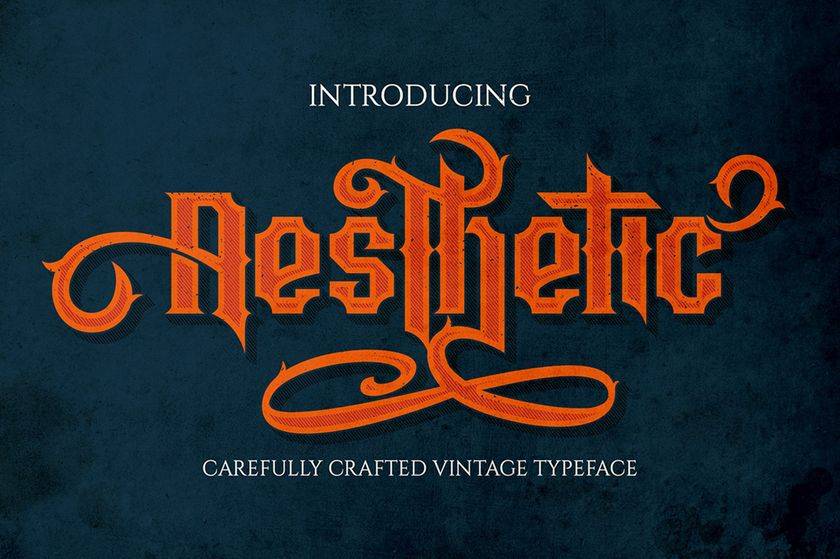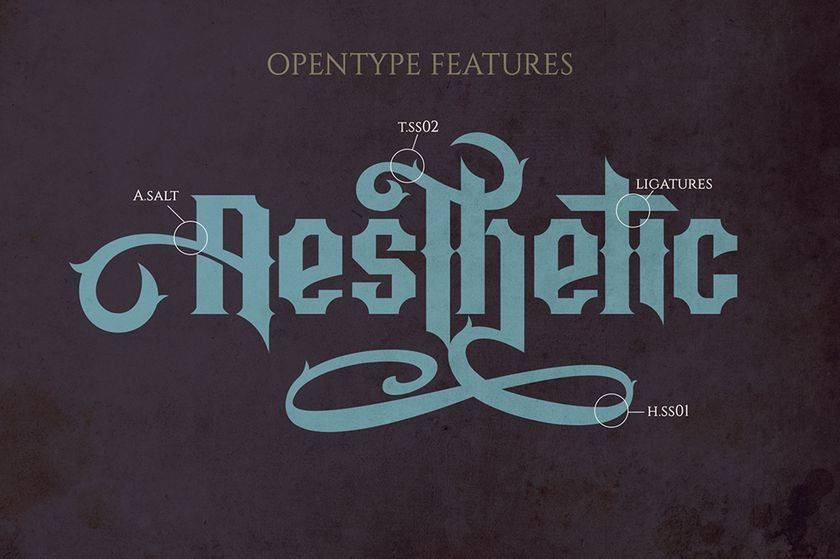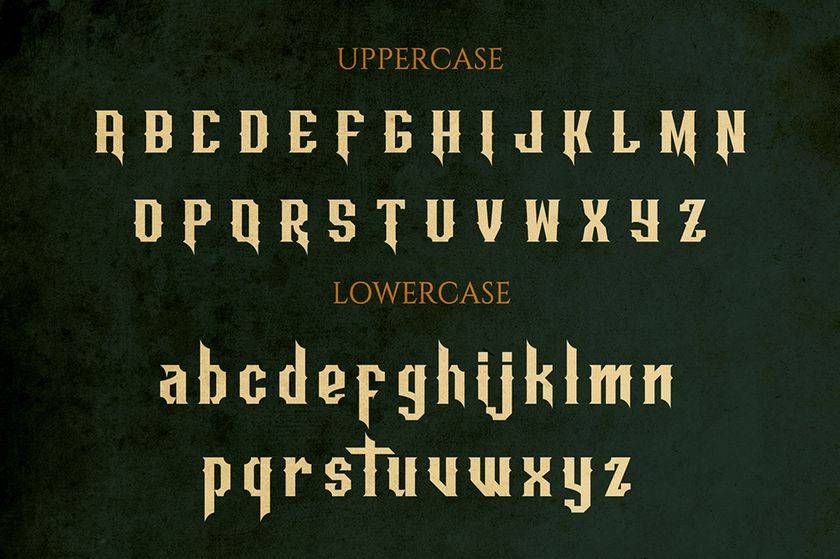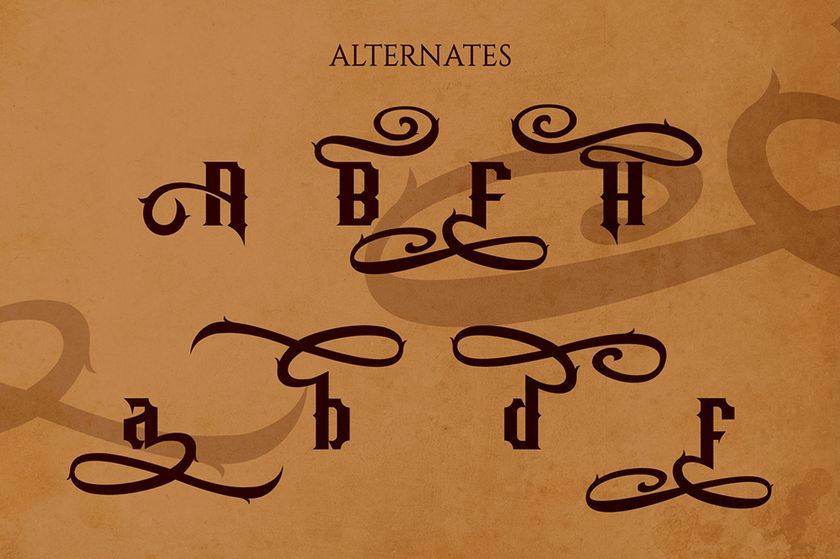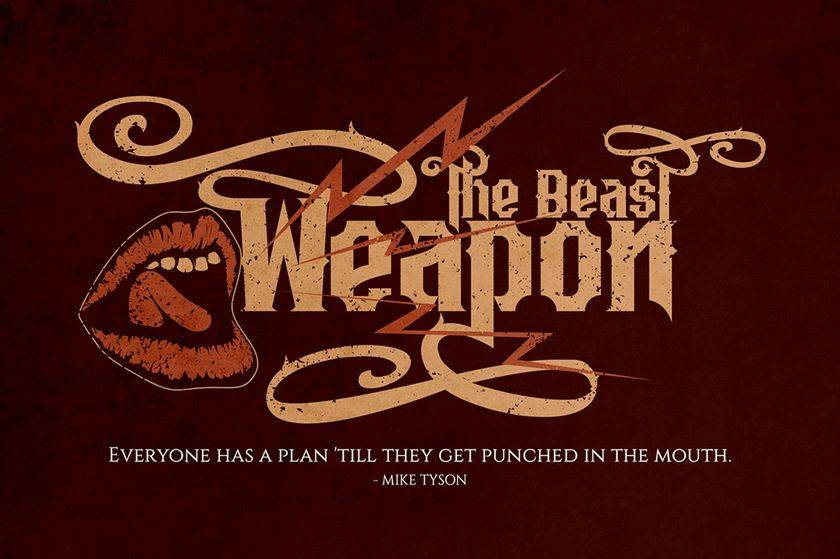
Aesthetic Font is a bold, condensed blackletter-inspired typeface featuring sharp, angular serifs and dramatic contrasts that give it a vintage, gothic feel. With its ornate swashes and striking letterforms, it’s ideal for creating eye-catching headlines, logos, or designs that want to evoke a sense of old-world elegance combined with a strong, rebellious edge. This font works best in bold display settings where its intricate style can stand out and captivate attention.
Aesthetic Font
About Aesthetic Font